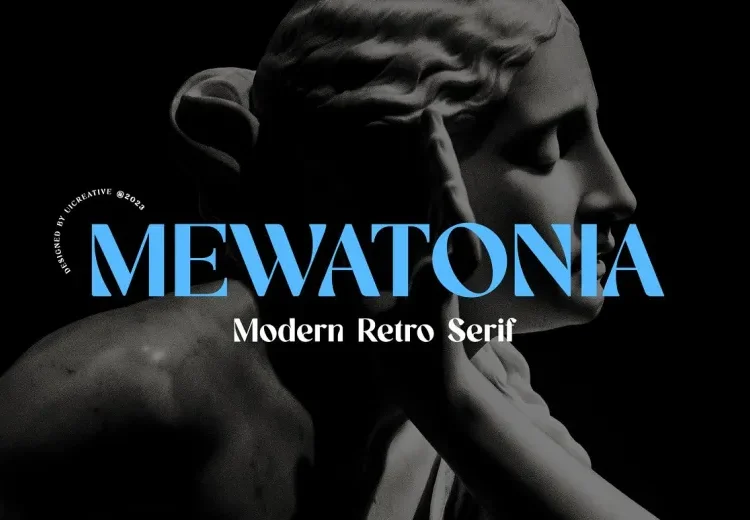
Mewatonia Font
Mewatonia is a classic serif typeface that blends elegance with modern sophistication, making it an ideal choice for a variety of design applications. Whether you’re creating logos, wedding invitations, stationary designs, or typography quotes, this font brings a timeless yet contemporary feel to your work. Its versatility makes it a go-to option for magazine covers, website headers, and branding projects.
The font’s refined design also makes it perfect for fashion-related editorial work, allowing for a balance of both feminine and masculine qualities in branding elements. Mewatonia seamlessly fits into designs that require a touch of elegance and style.